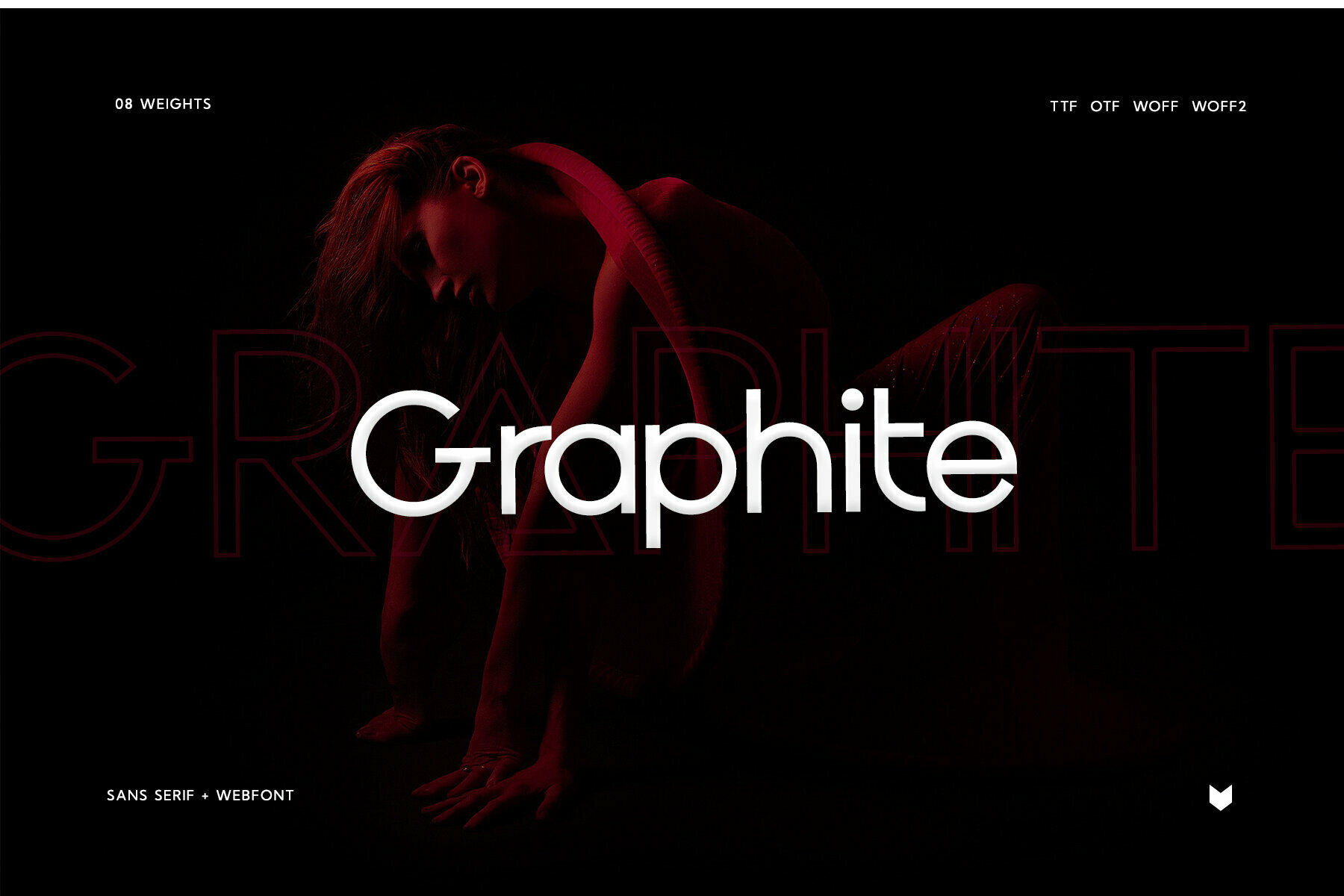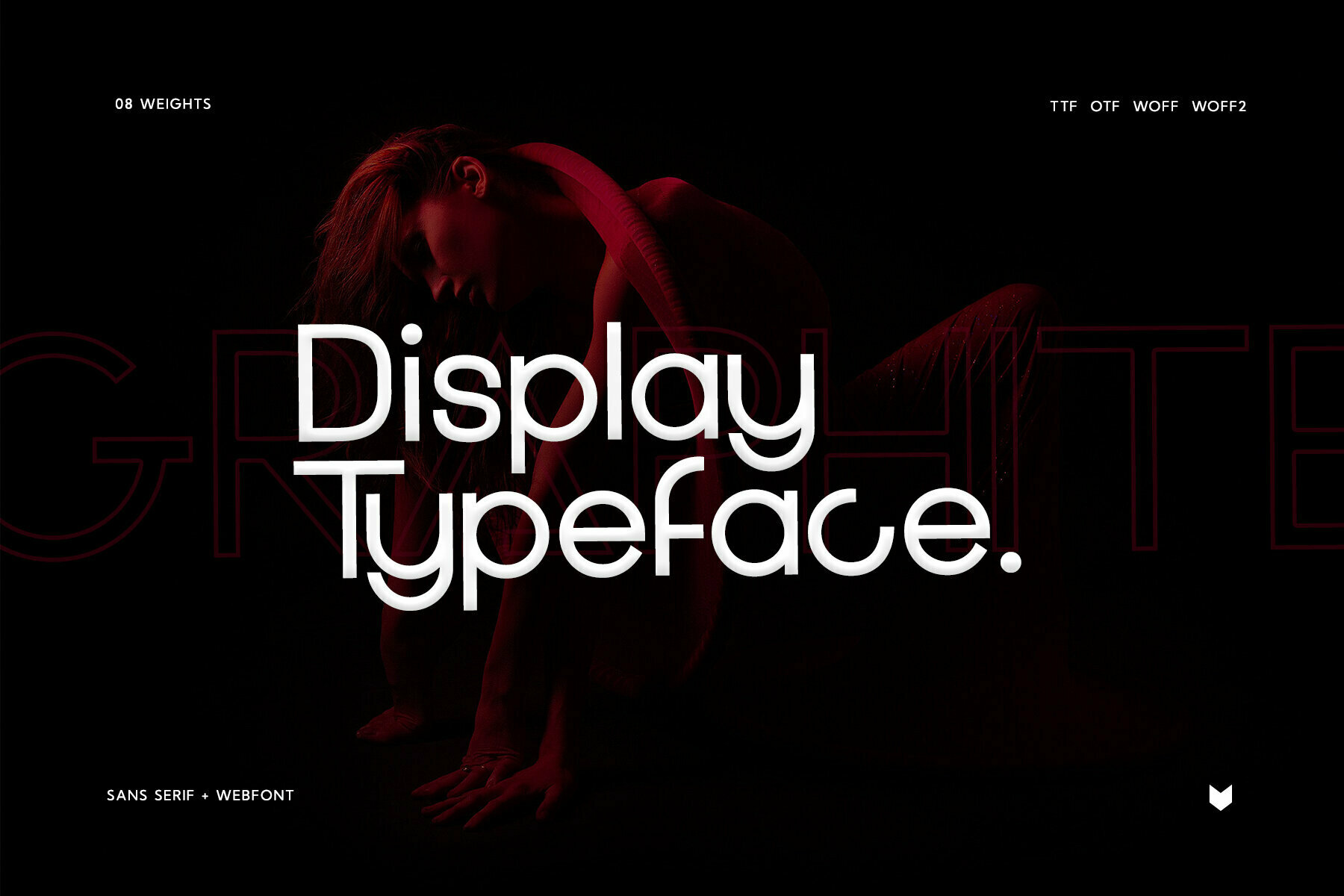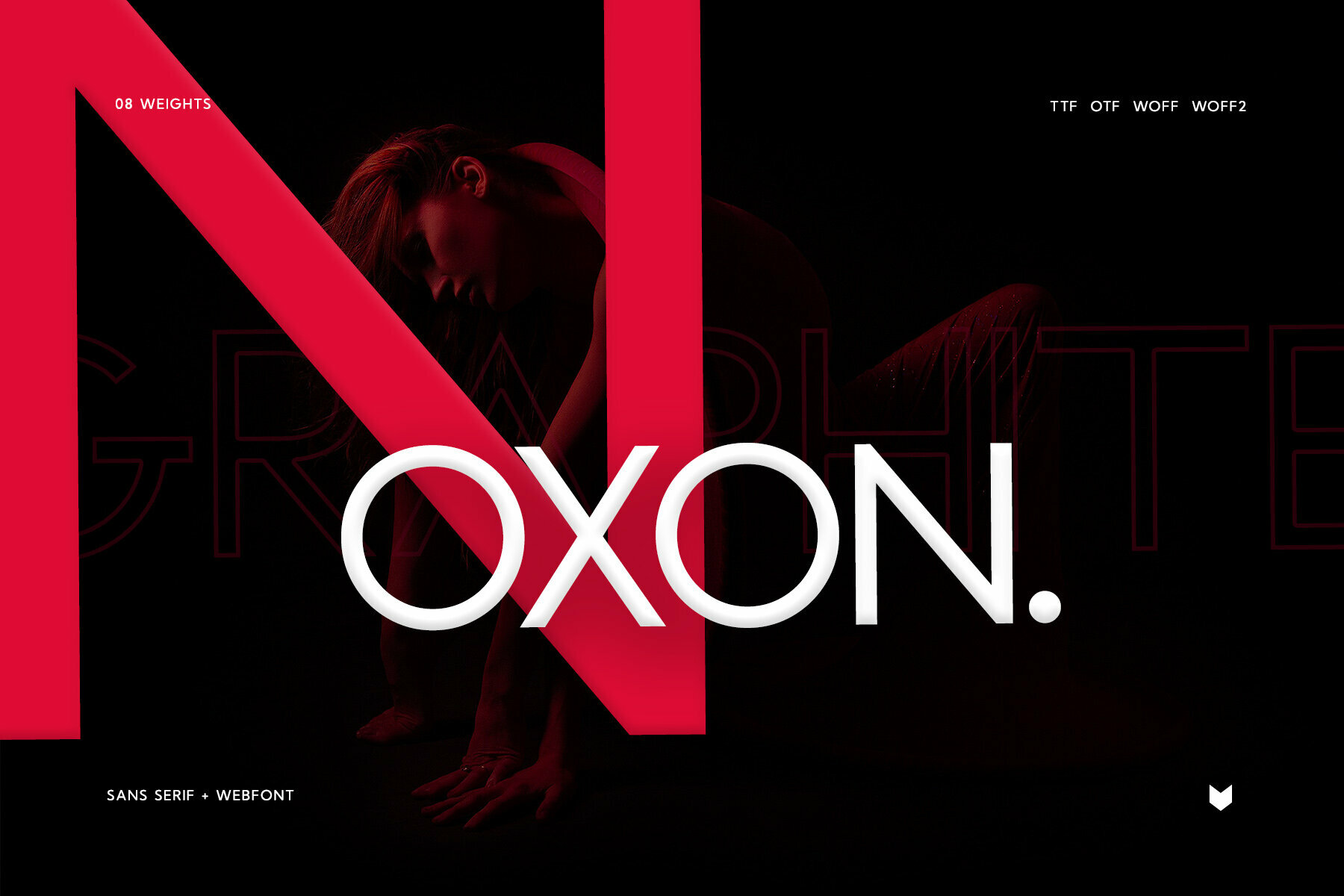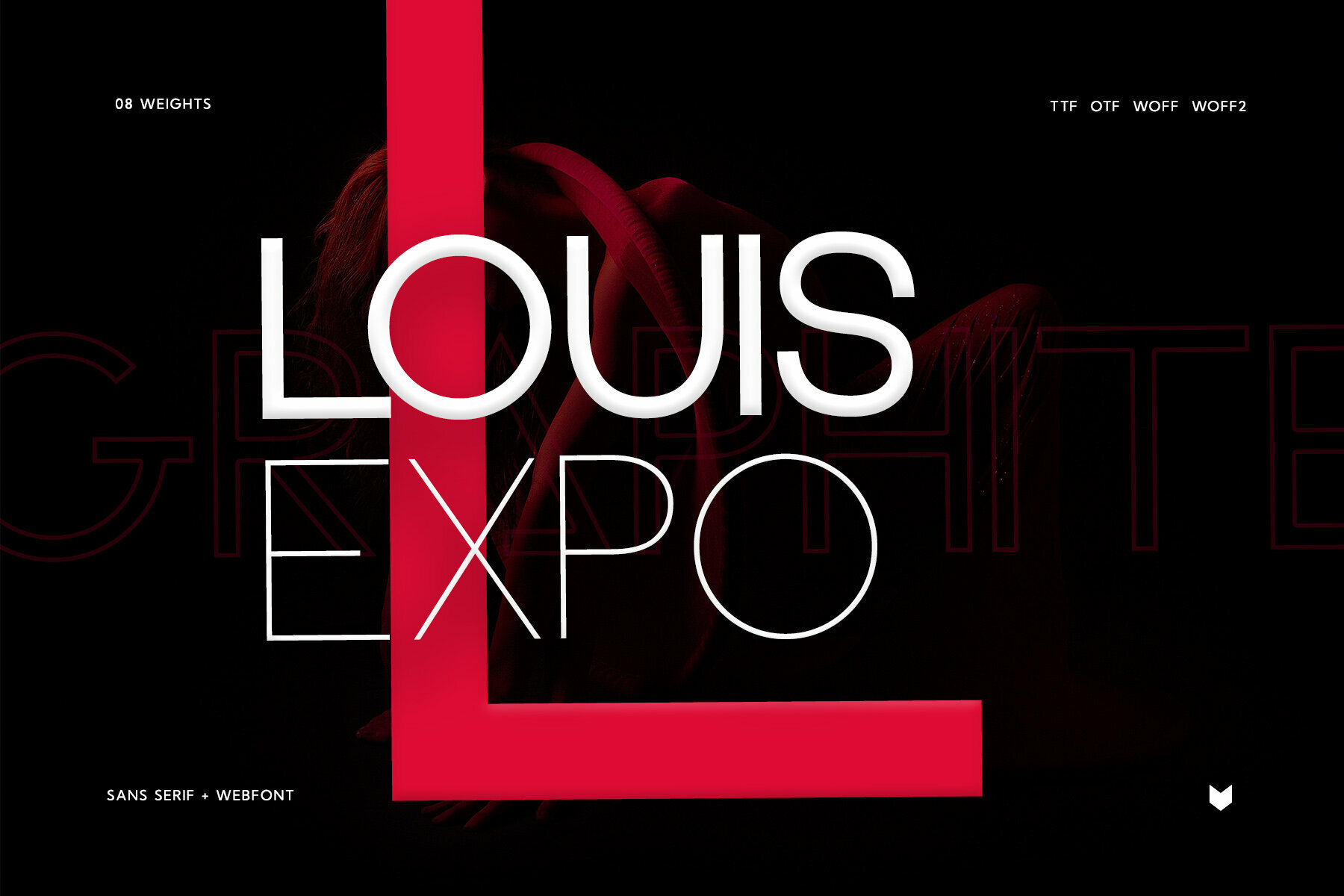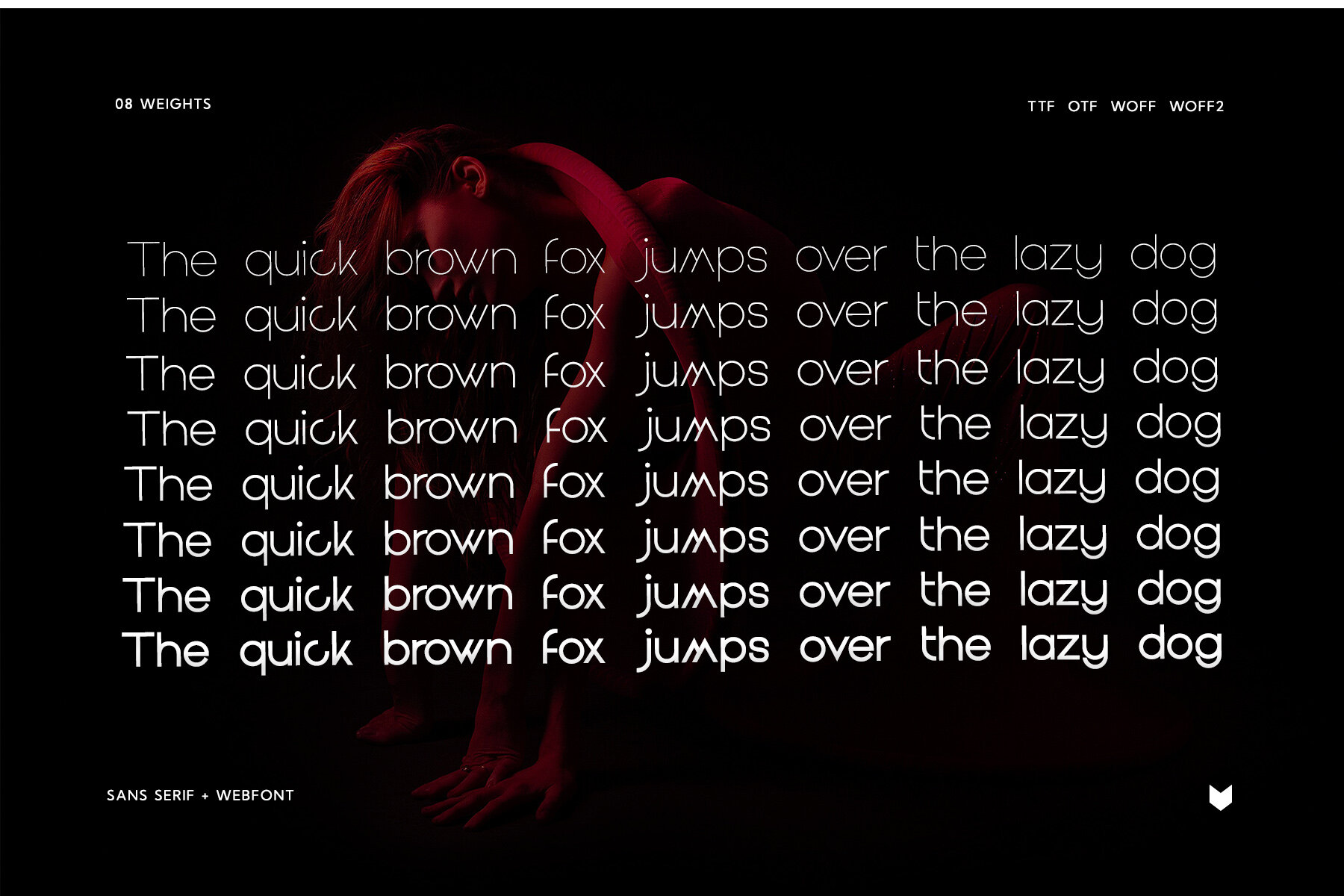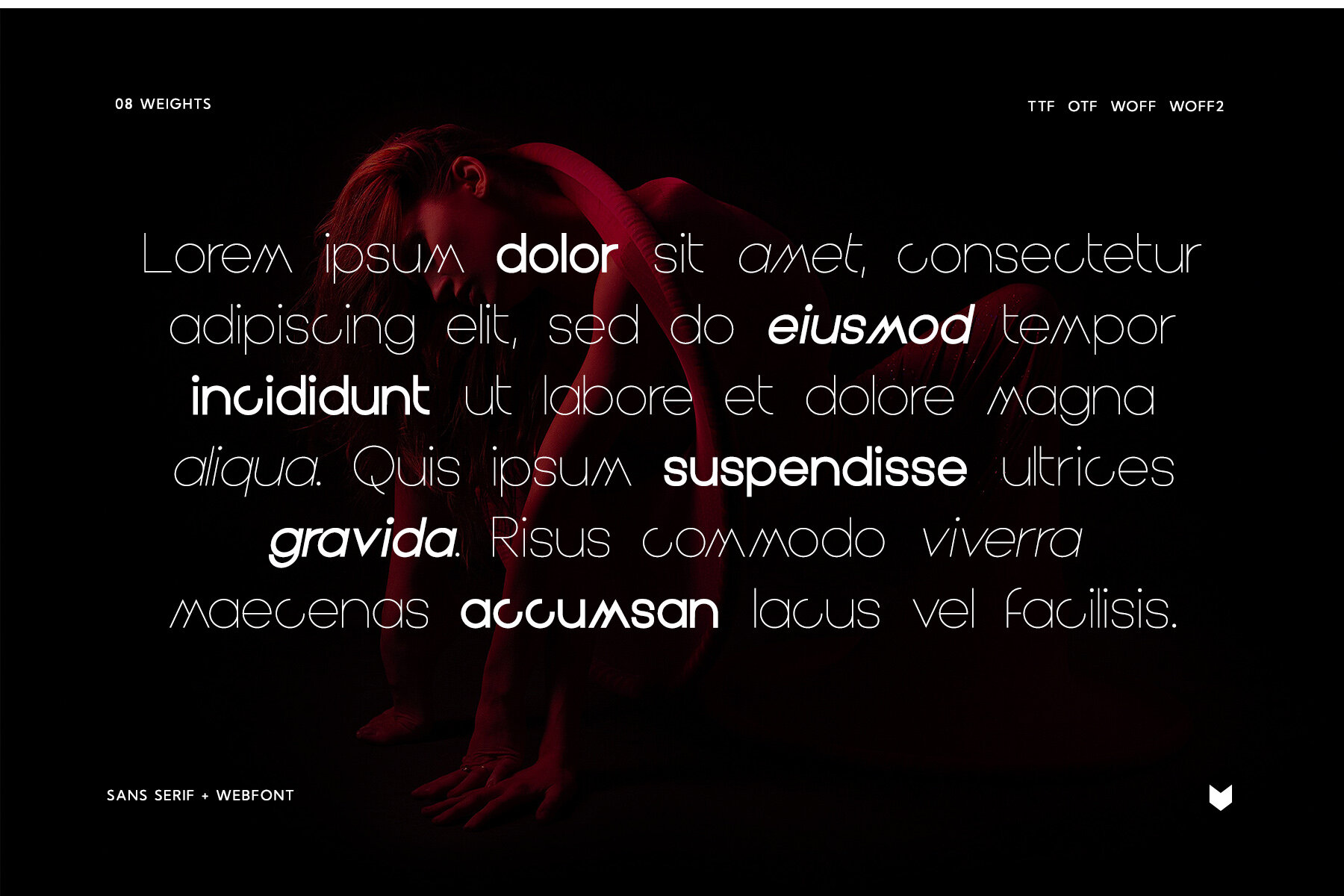
Graphite Pro Font
Graphite Pro by FoxType Co is a sophisticated typeface that brings a minimalist touch to modern design projects. Its versatility ensures that it performs impressively in both large and small sizes, providing a harmonious balance suitable for a broad range of applications, from branding and logos to headlines and captions.Graphite Pro: Minimalist Elegance in Typeface Design